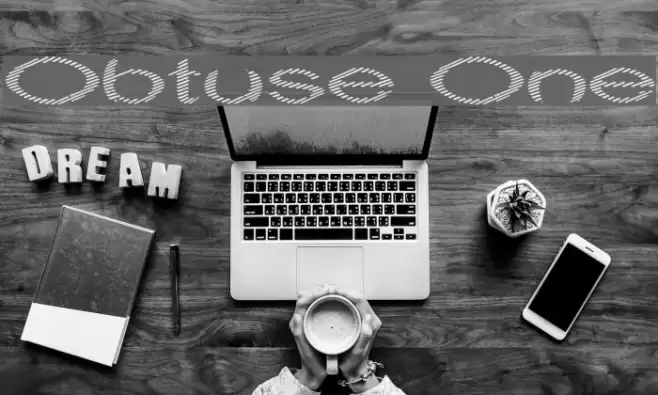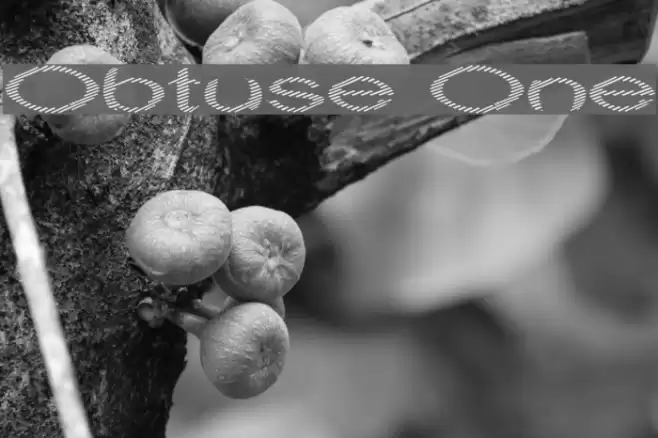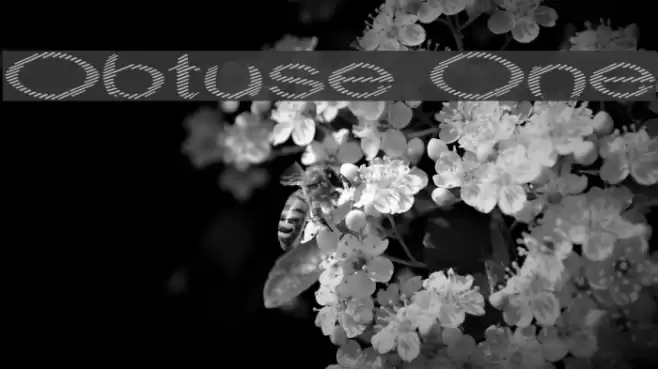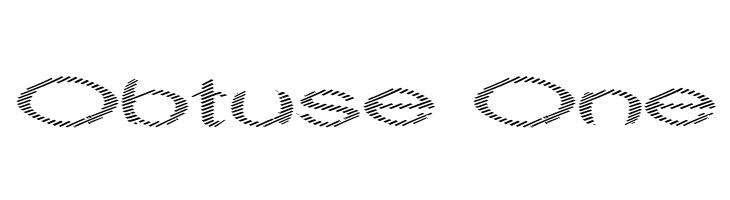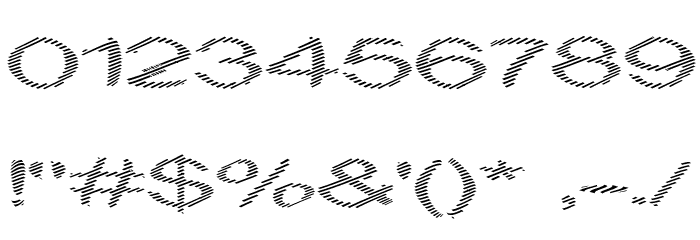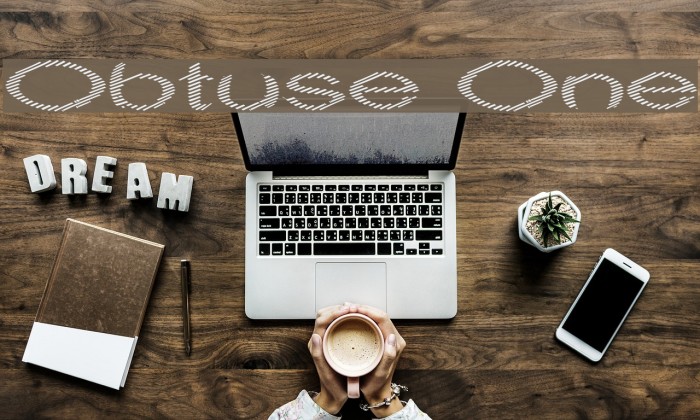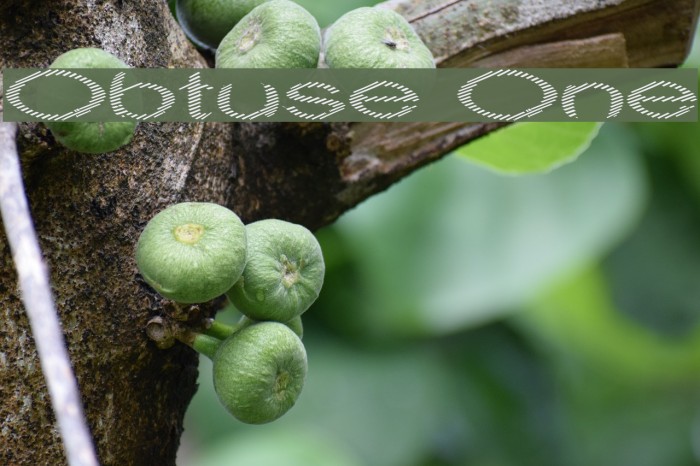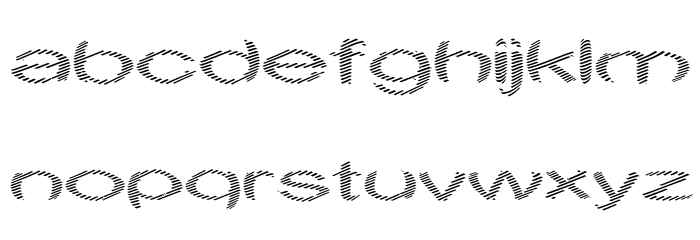
Obtuse One Font
Obtuse One Description
This font features a unique, textured design with diagonal lines running through each character, creating a dynamic and visually engaging effect. The letters are rounded and maintain a consistent thickness, giving them a modern and playful appearance. The uppercase and lowercase characters are well-balanced, and the numerals are clear and distinct. The special characters are designed to match the overall style, making this font versatile for various applications. Its distinctive pattern makes it stand out, adding a creative flair to any project.
A textured, modern font with diagonal lines and rounded characters from Decorative fonts.
- Proposed Projects: Ideal for creative projects such as posters, branding, and digital art where a unique and eye-catching font is desired.